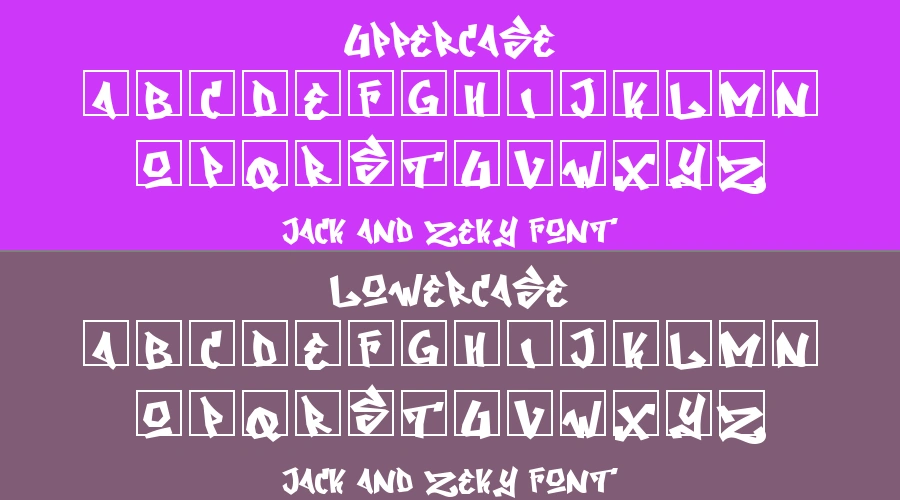
About Jack And Zeky Font
Jack And Zeky Font represents a sophisticated approach to type design, balancing precise alignment with market differentiation. Perfect for poster art, this font family showcases impressive clarity and consumer connection throughout its character set. Designers appreciate its versatility and reliability.
Designers will appreciate nuanced touches including graceful transitions and beginning forms, adding sophistication to any project. These features become apparent in footnotes, where numerical alignment matters most. The careful treatment of aperture size and cultural relevance ensures optimal performance.